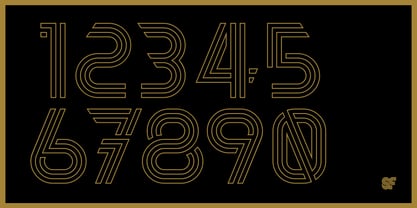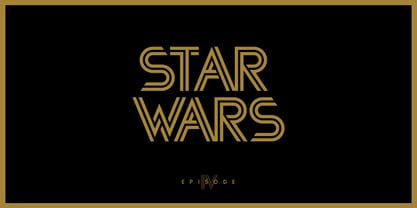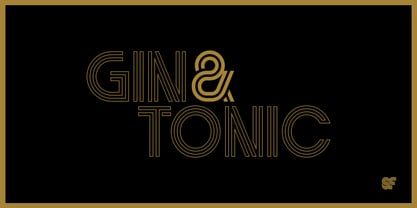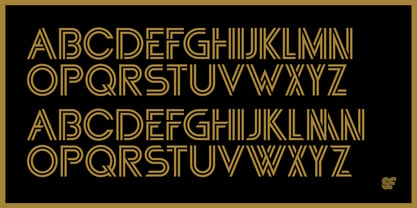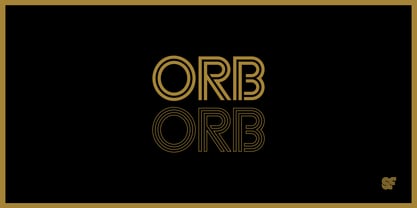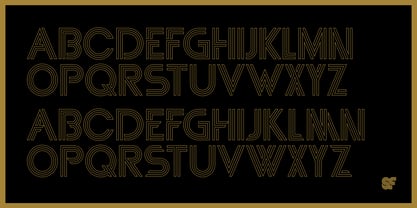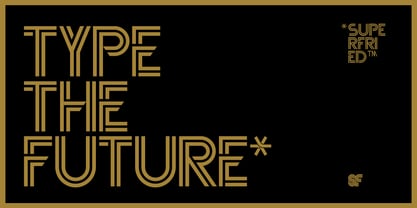
Orb
by Superfried
Orb Font Family was designed by published by Superfried. Orb contains 2 styles family package options.
Orb by Superfried has been re-released. Now re-drawn and improved the elegant, geometric uppercase display typeface now also includes a secondary character set activated via the shift key. The glyphs are constructed from two concentric paths featuring intricate interactions and angled incisions, which lead to a very distinct look and feel. Orb includes 266 glyphs in two character and is available in two weights: display and outline.